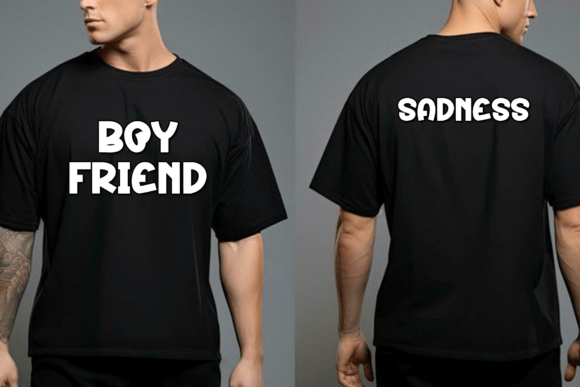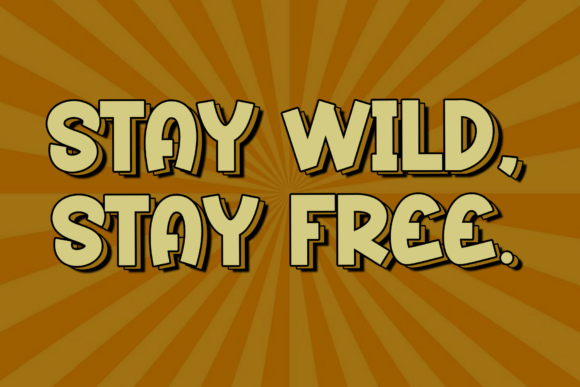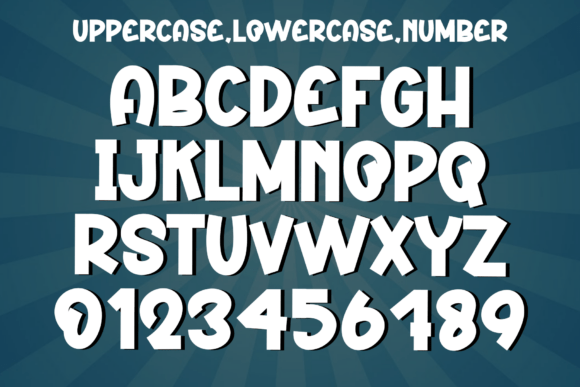
Introduction to Book Comic Font
Book Comic is a minimal and neat font.
Key Features of Book Comic Font
Why Choose Book Comic Font?
Book Comic Font offers exceptional quality and versatility, making it a valuable addition to your design toolkit. Whether you’re creating for personal projects or commercial use, Book Comic Font delivers professional results.